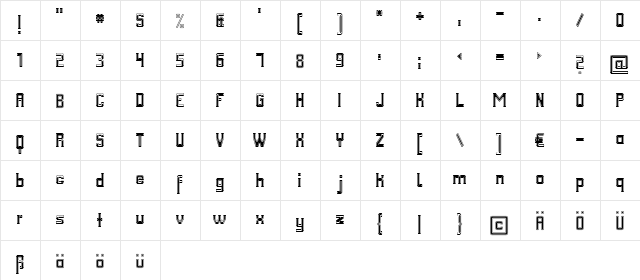
FM College Team in&out Regular
Design Context for FM College Team in&out Typeface
FM College Team in&out has the bold swagger of sports branding: strong, assertive letterforms designed to dominate headlines and jerseys alike.
Built for sports team identities, athletic apparel, event posters, and high-energy promotional material.
Pro Tip: FM College Team in&out thrives on contrast — try it large, bold, and tight against a clean background for maximum visual impact.